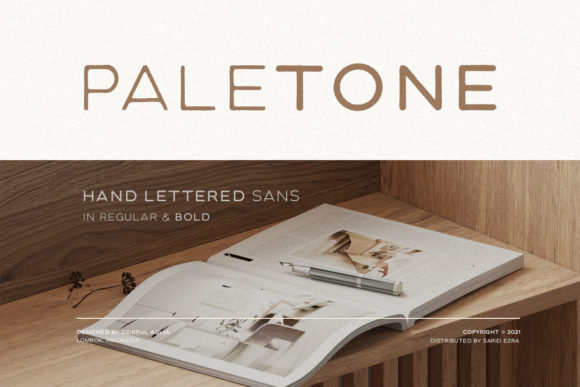
Welcome to the world of Paletone – a hand-crafted sans serif font that paints a picture of elegance and simplicity. Dive into the world of Paletone and embark on a journey of creativity, where your designs and projects come alive with a touch of sophistication and charm.
Experience the organic, hand-lettered essence of Paletone, where each character is meticulously crafted to exude a sense of genuineness and warmth. Unleash your creativity with this versatile font, perfectly suited for a multitude of projects, from delicate branding designs to captivating social media posts.
Paletone's understated beauty shines through its minimalist strokes, making it the perfect choice for those seeking a clean and modern aesthetic. Embrace the earth tone color palette that Paletone naturally complements, creating a harmonious balance in your designs.
Let Paletone be your muse as you craft inspirational quotes and heartfelt messages. Its delicate curves and flowing lines add a touch of elegance to your words, captivating your audience with their timeless charm.
With Paletone, the possibilities are endless. Whether you're designing logos, creating eye-catching posters, or simply adding a touch of sophistication to your presentations, this font will elevate your work to new heights.